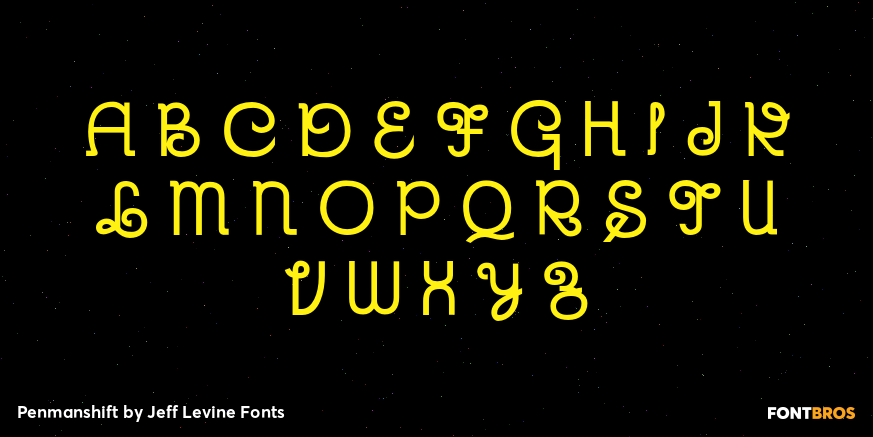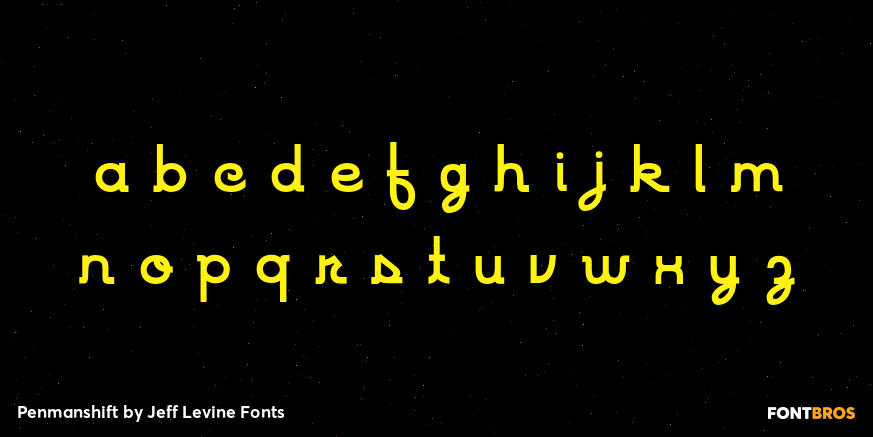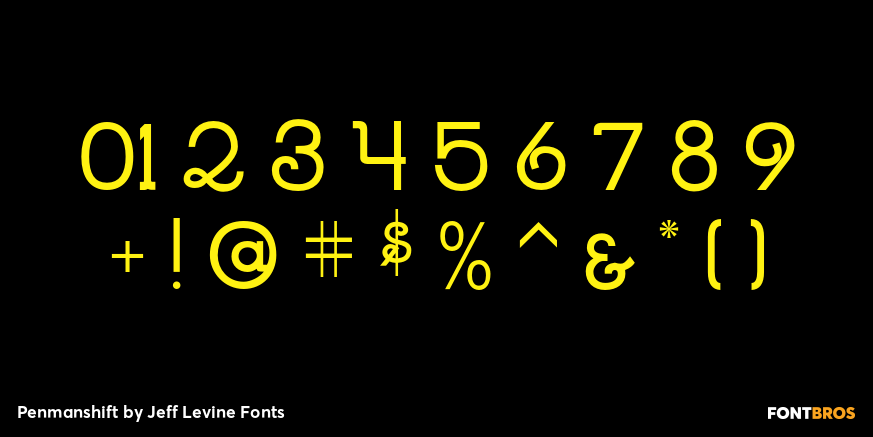
Penmanshift
Penmanshift JNL by Jeff Levine is actually a semiscript - a vertical text font with the curved lines of a script alphabet, but the look and feel of a poster letter.